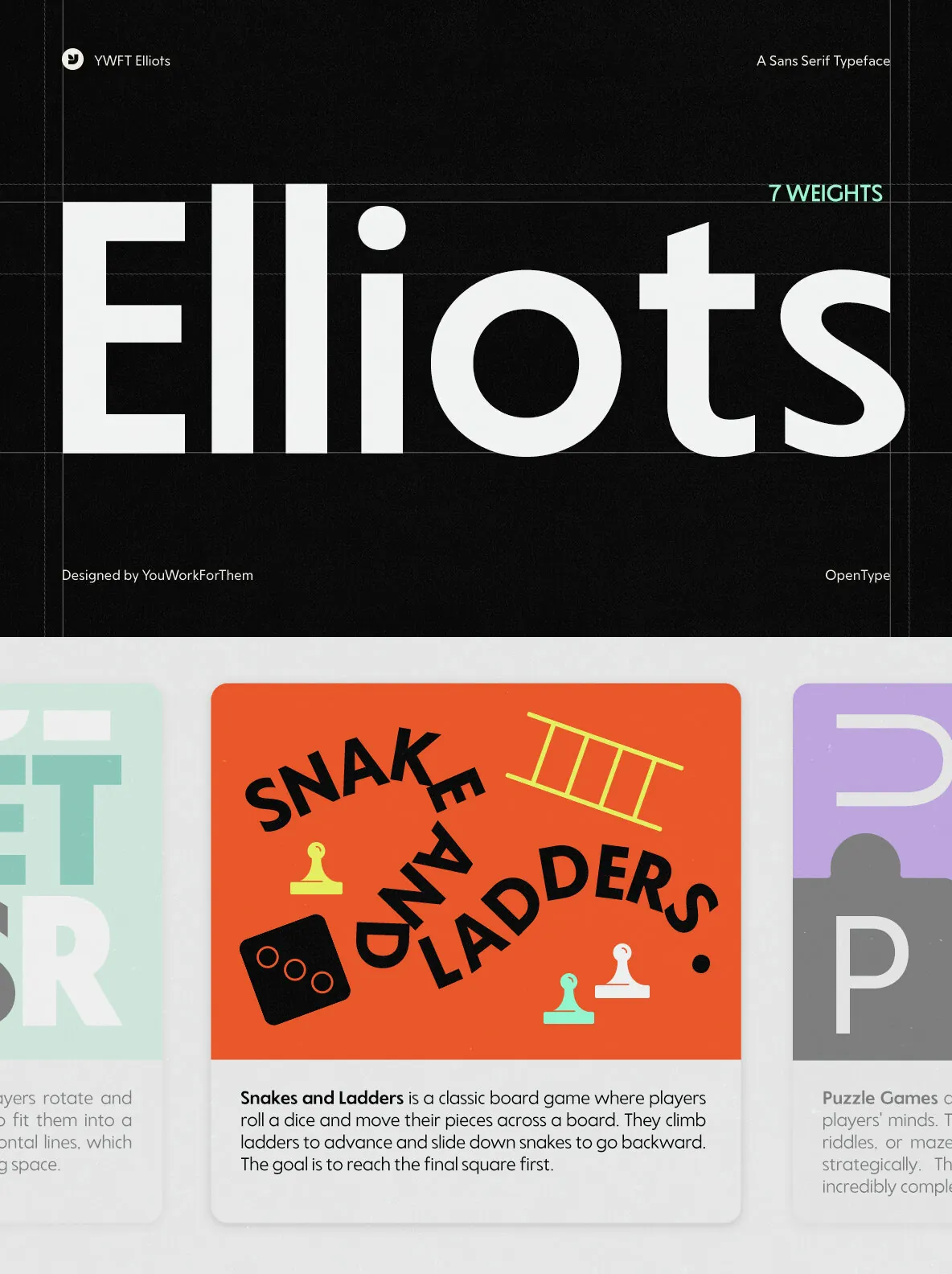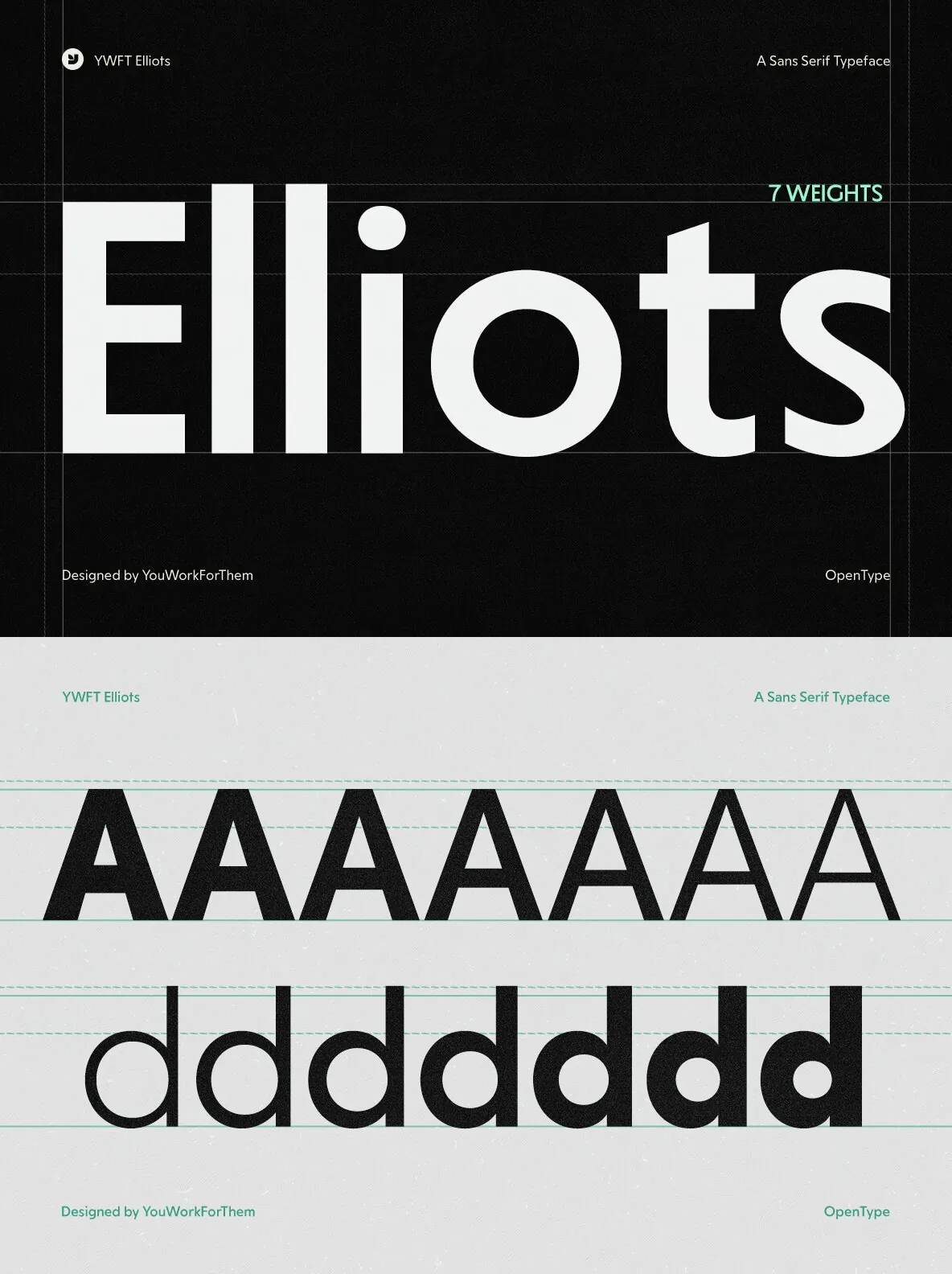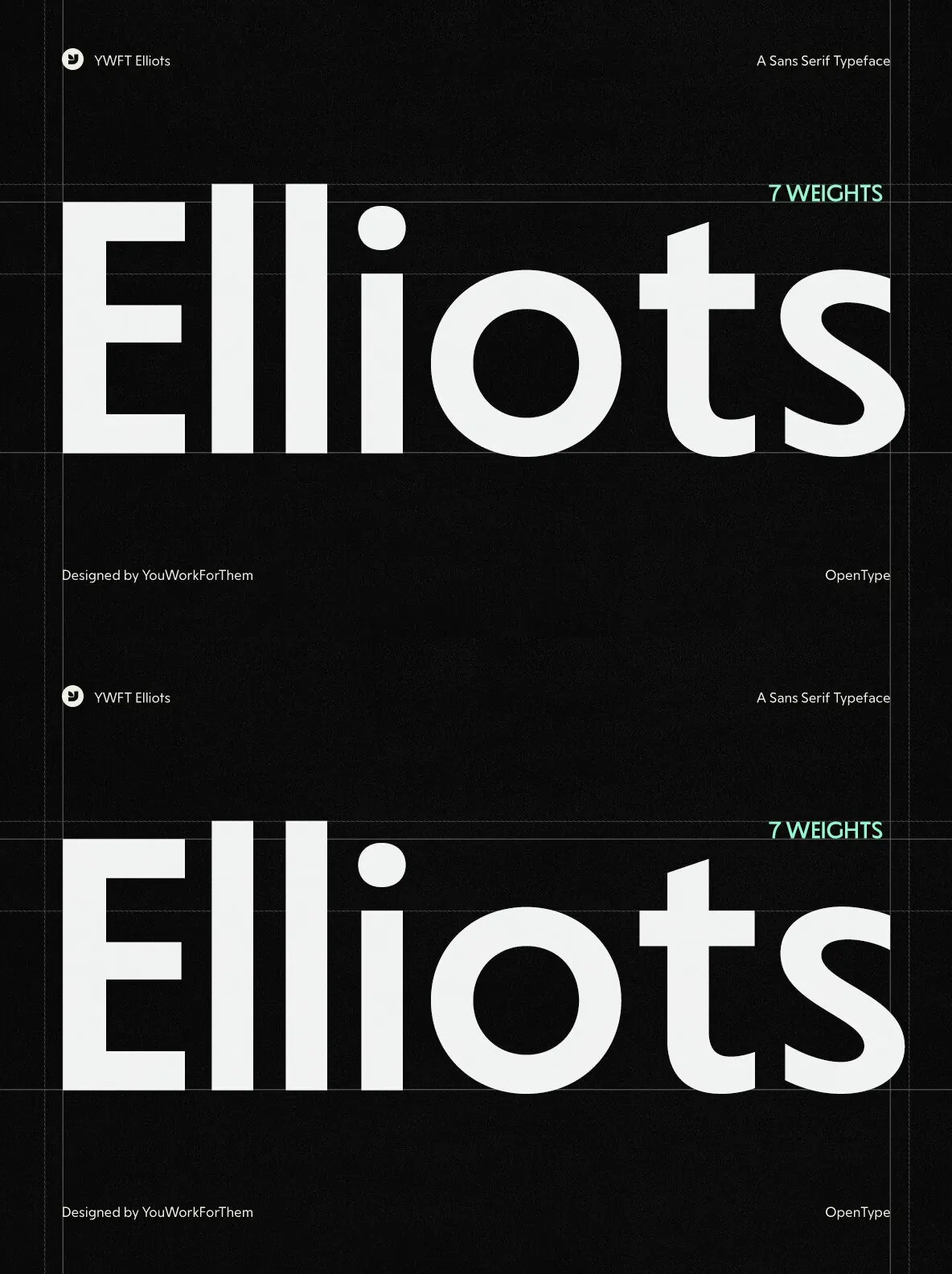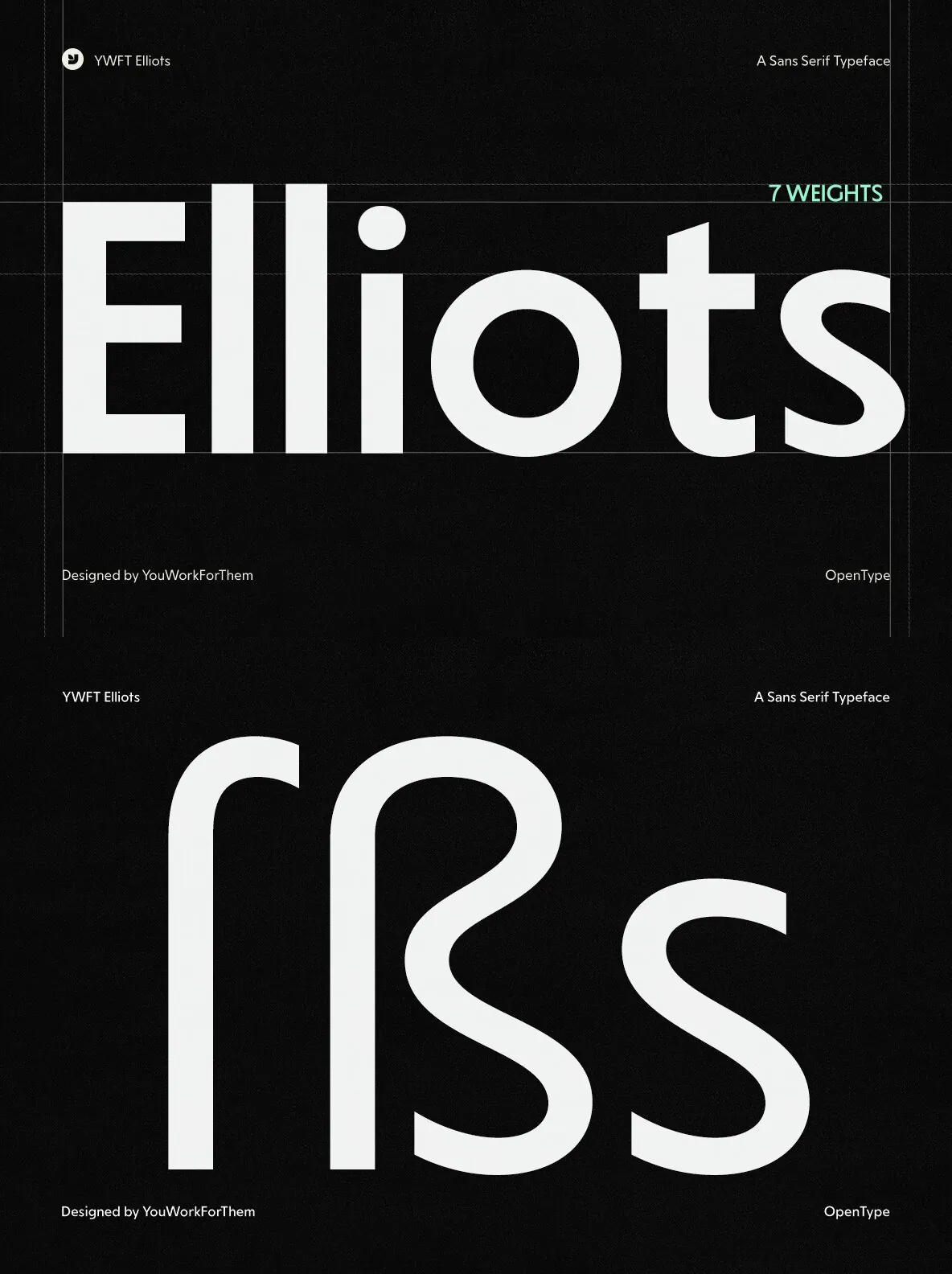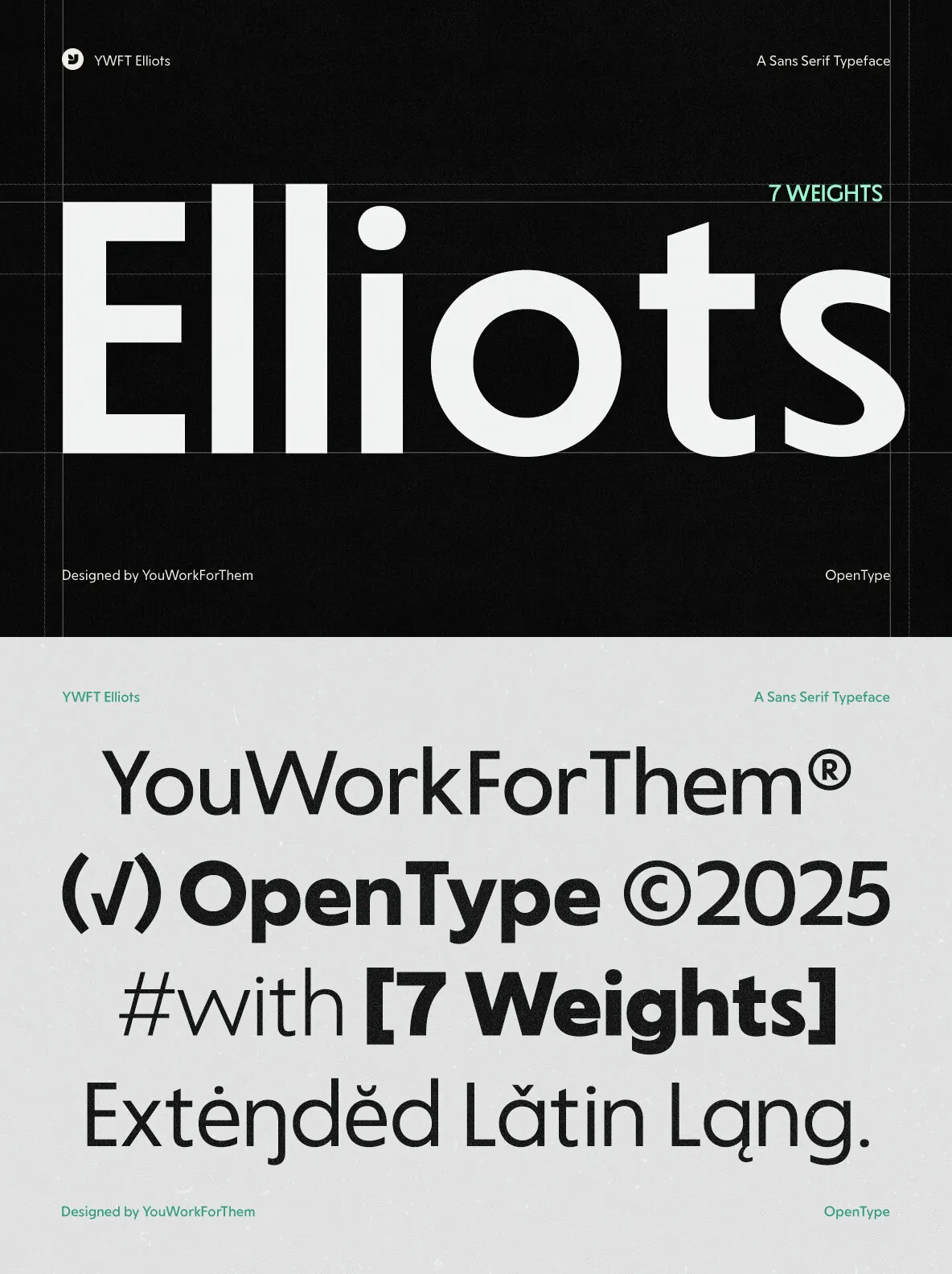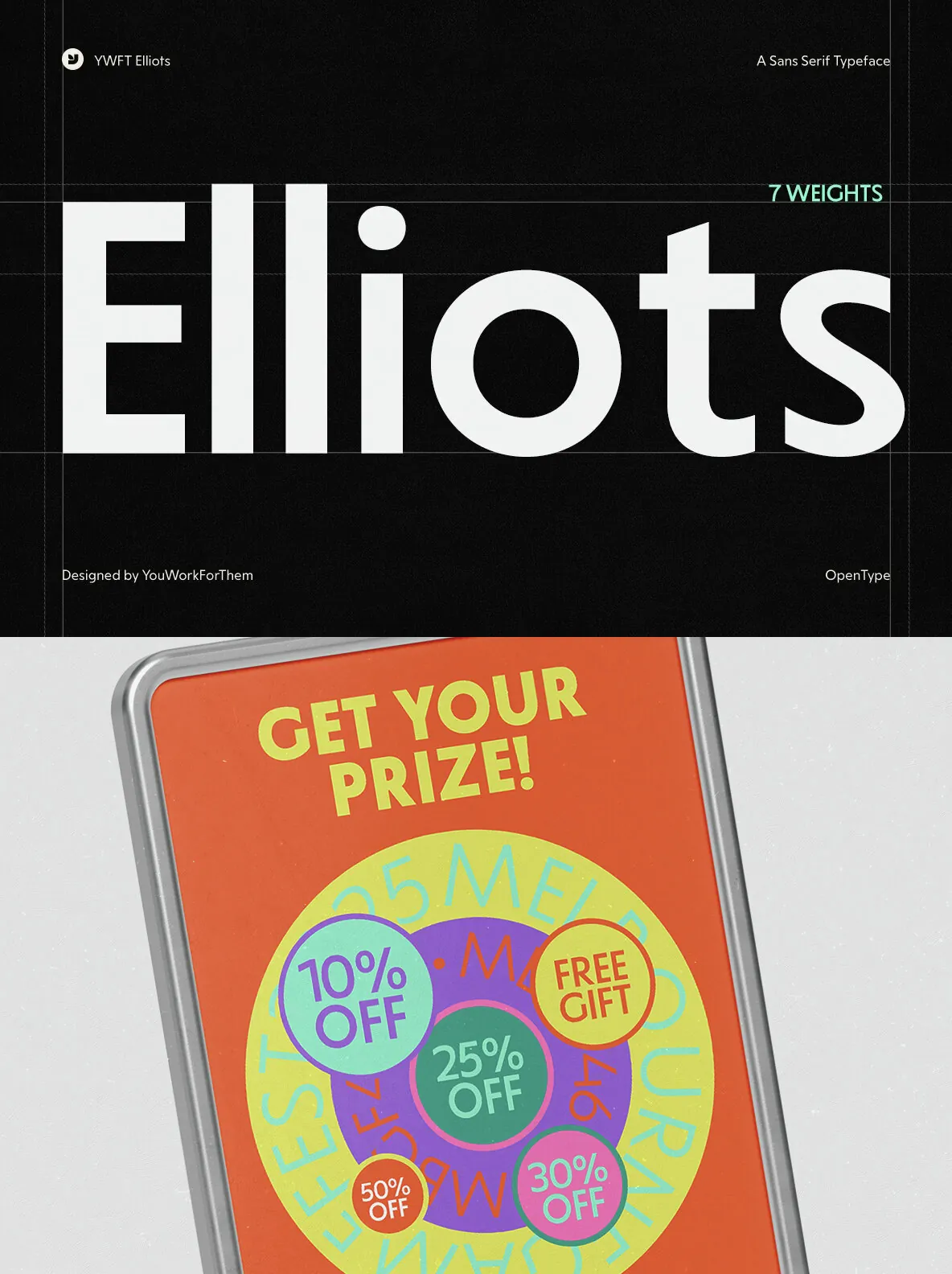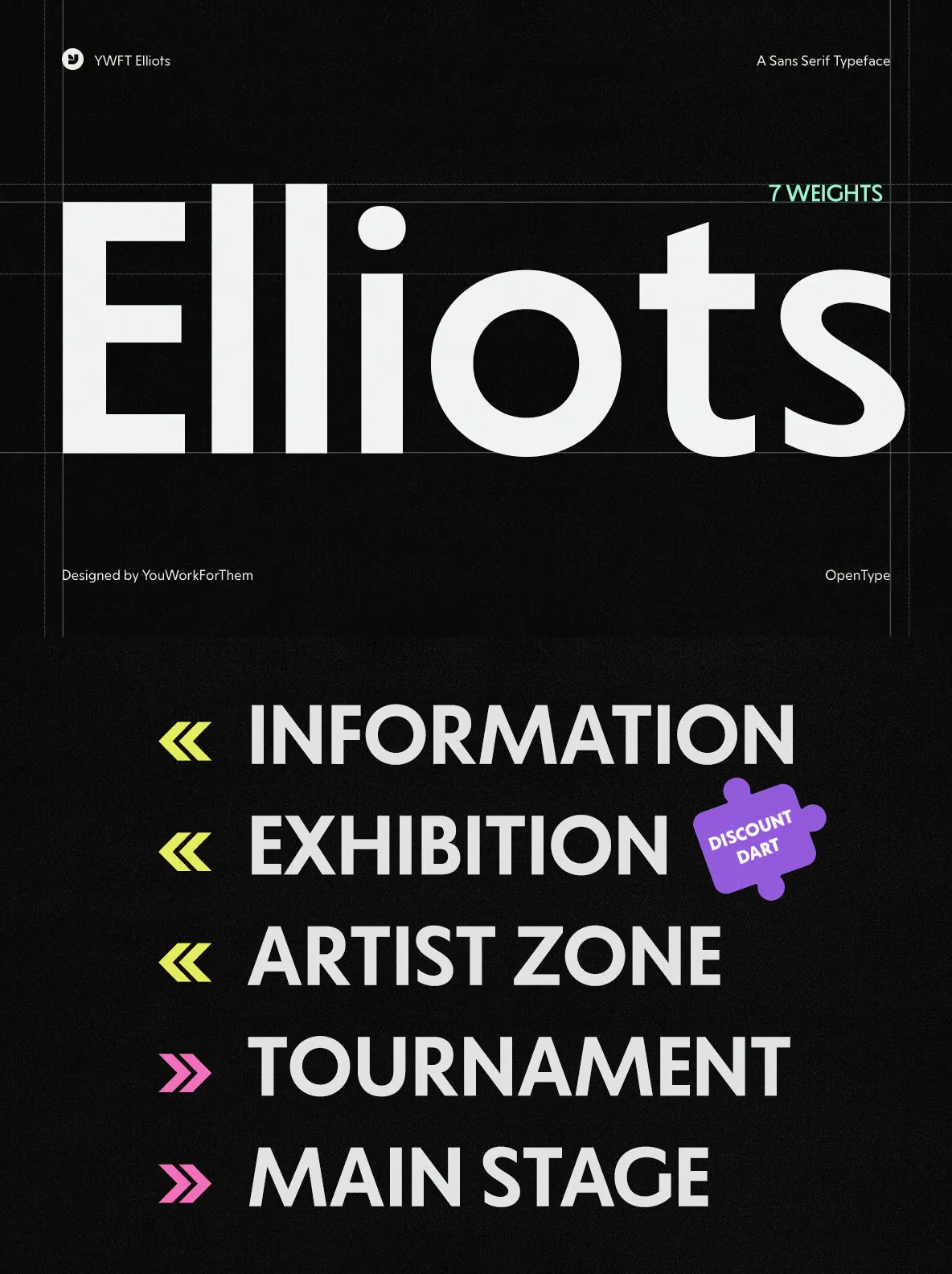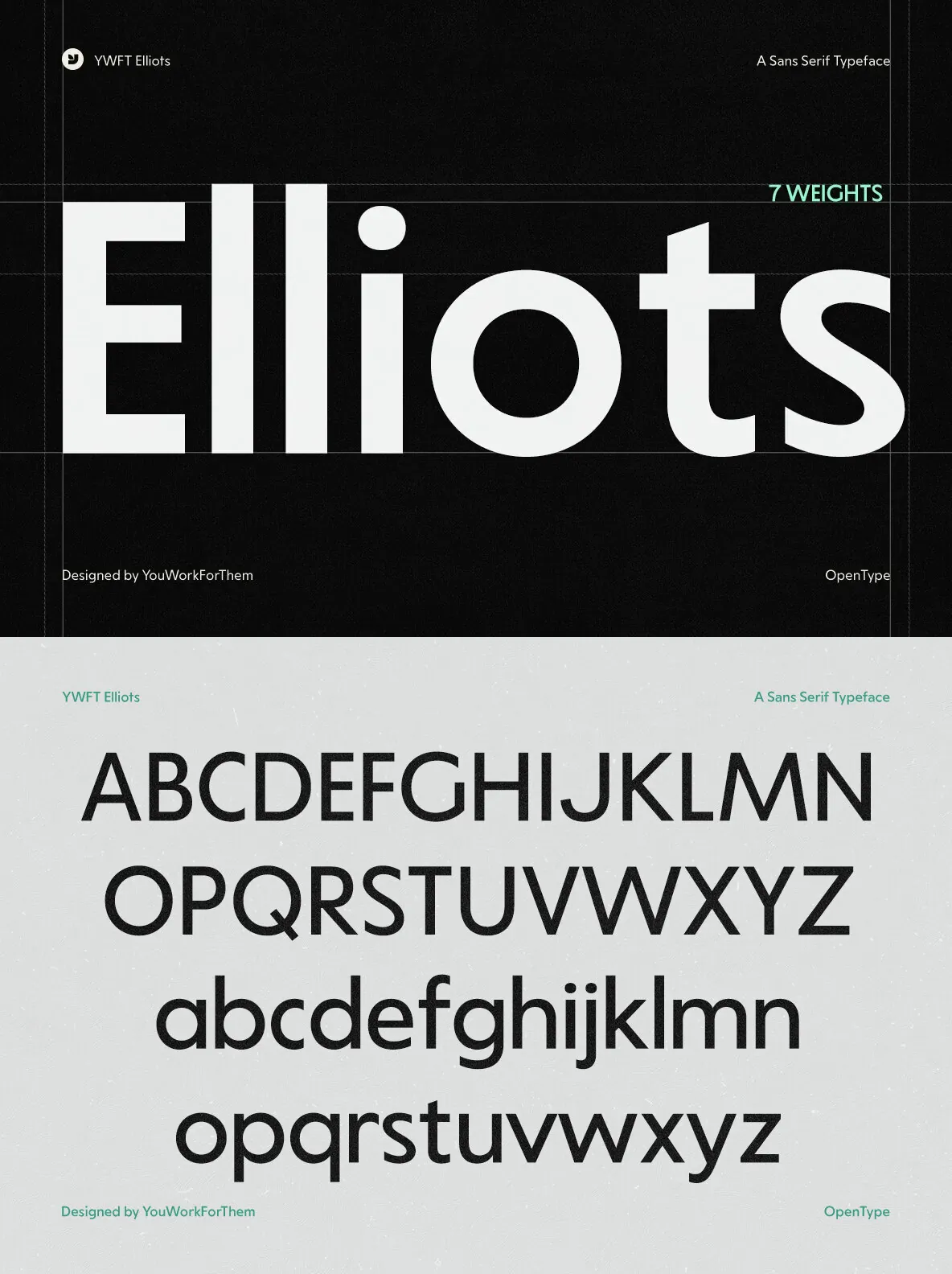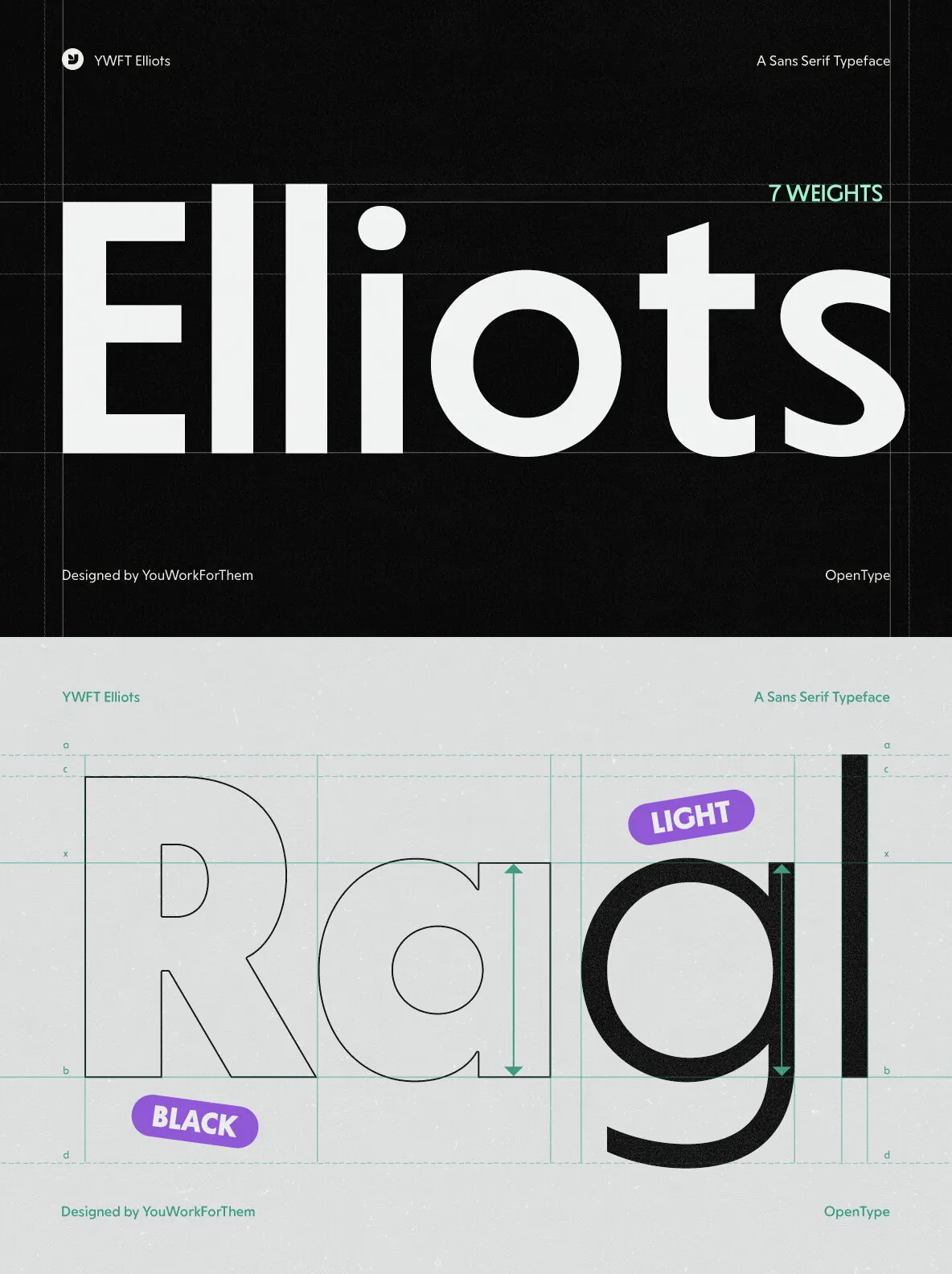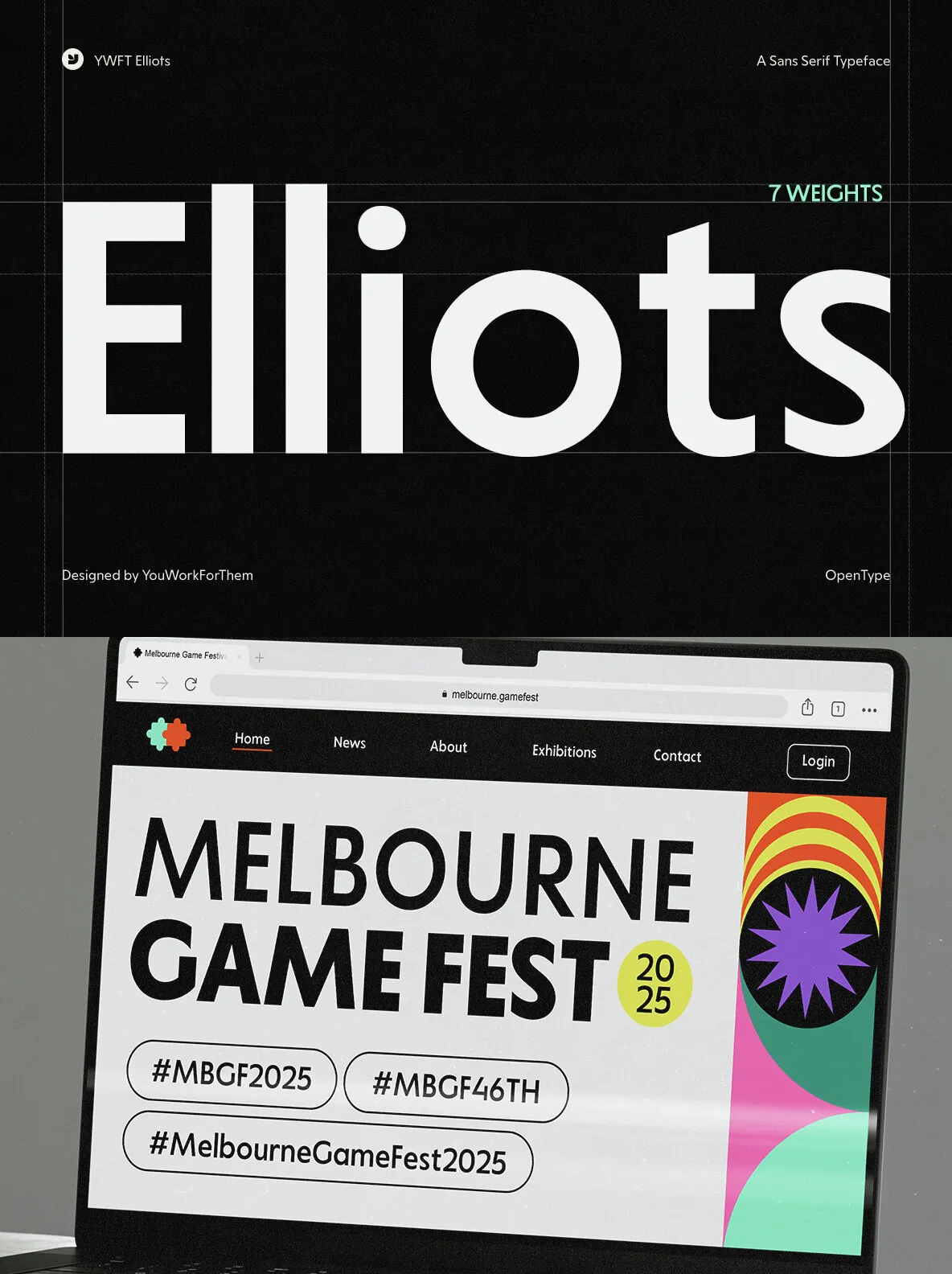
YWFT Elliots: A Precision-Driven Condensed Sans-Serif
YWFT Elliots, a YouWorkForThem exclusive, delivers a modern and minimalist geometric sans-serif design tailored for today’s digital and branding needs. With its sleek, condensed letterforms and consistent proportions, Elliots ensures both legibility and style in equal measure, making it a go-to choice for interface designs and corporate projects.
Extensive Glyph Set and Features
Every font in the Elliots family is equipped with over 450 glyphs, offering advanced typographic options to support your creativity:
OpenType Features
: Access All Alternates, Case-Sensitive Forms, Fractions, Historical Forms, Localized Forms, Ordinals, Stylistic Alternates, and Superscript.
Multilingual Support
: Extended language compatibility ensures versatility for global projects.
Font Family Overview
The Elliots collection includes seven carefully designed weights, from light to black, providing flexibility for both subtle and bold designs. A
Design Versatility
This condensed sans-serif typeface is ideal for:
Modern interfaces
: With its high x-height and narrow proportions, Elliots ensures clarity even in dense layouts.
Corporate branding
: Its geometric precision and uniformity lend a clean, professional appearance to logos and materials.
Technical and editorial use
: Perfect for detailed documentation or impactful headlines.
Designed for professionals seeking clean, sharp, and contemporary aesthetics.